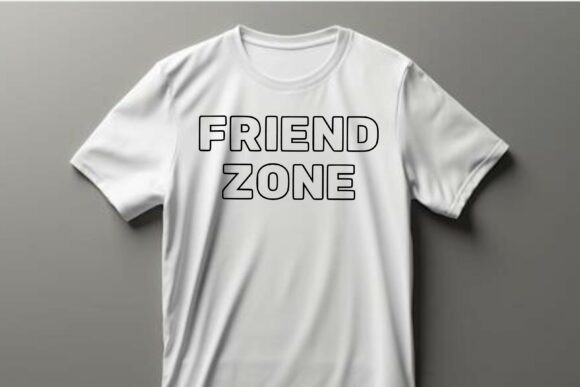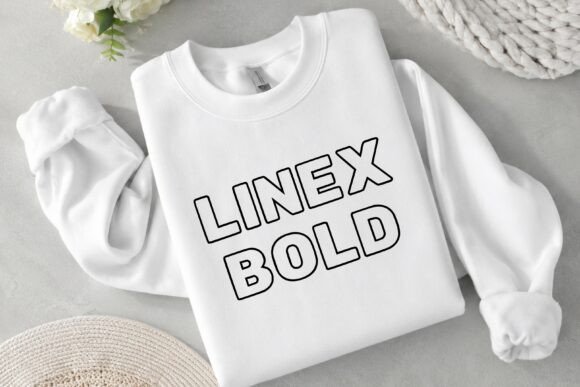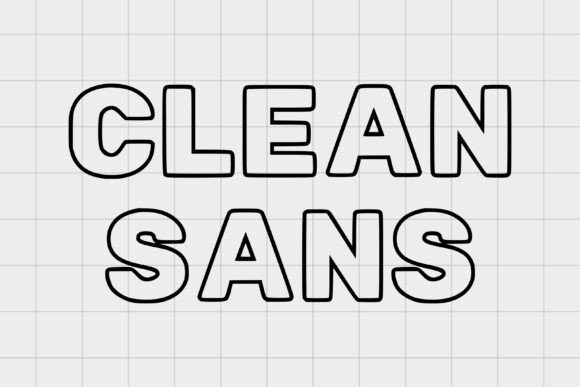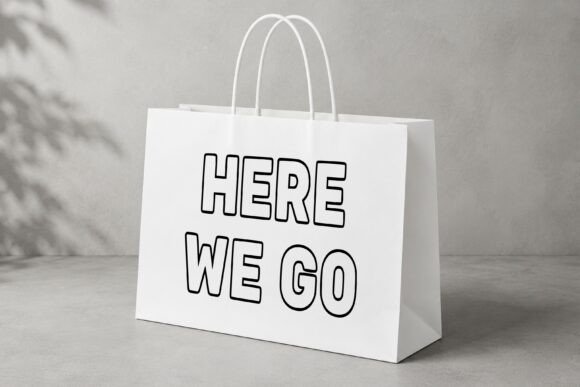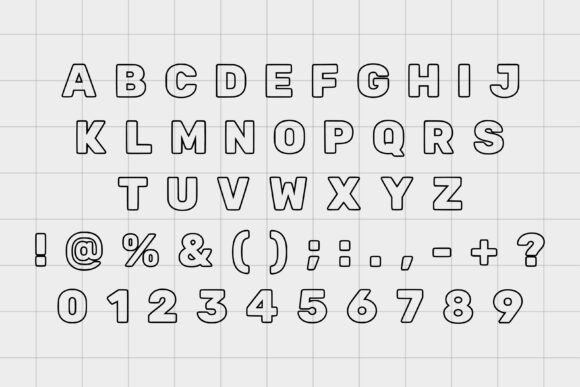
Unlocking Creativity with Outgrid Contour Font
Have you ever found yourself staring at a blank canvas, searching for the perfect font to bring your creative project to life? For designers, this moment can be both thrilling and intimidating. But what if you stumbled upon a font that not only elevates your design but also transports you to a world of futuristic possibilities? Welcome to the realm of Outgrid Contour Font, a striking display font that’s about to revolutionize your creative workflow.
This game-changing font combines clean curves with bold contour lines, creating a strong visual impact that’s sure to grab attention. Whether you’re working on a logo design, poster, or social media graphic, Outgrid Contour Font is the perfect design resource to take your project to the next level. With its modern geometric structure and transparent background, you can easily customize your design to fit any high-quality visual scheme.
Key Features of Outgrid Contour Font
- Unique Contour Design: The Outgrid Contour Font features a distinctive contour design that adds a creative touch to any project.
- High-Quality Graphics: This font is designed with high-quality graphics, making it a valuable resource for designers and artists.
- Transparent Background: The font comes with a transparent background, allowing for easy integration with other design elements and backgrounds.
- Perfect for Creative Projects: The Outgrid Contour Font is an excellent choice for designers and artists working on creative projects, from branding and advertising to digital art and graphics.
Honest Review: Outgrid Contour Font
I recently stumbled upon the Outgrid Contour Font, and I must say it’s been a game-changer for my creative projects. As a designer, I’m always on the lookout for high-quality design resources that can elevate my work.
However, I did encounter some limitations: ⚠️ The font is a bit limited in terms of character set, which can be a problem for projects that require a wide range of symbols and glyphs. ⚠️ Additionally, the font can be a bit glitchy when used with certain software, which can be frustrating.
Overall, I’m impressed with the Outgrid Contour Font. While it’s not perfect, its strengths far outweigh its weaknesses. If you’re a designer looking for a high-quality font to add to your design arsenal, I’d definitely recommend giving the Outgrid Contour Font a try.
- Customizable
For the best results, use the Outgrid Contour Font in combination with other design elements, such as shapes and images. Experiment with different font sizes and colors to create a unique and eye-catching design. You can also use the font in conjunction with other design resources to create a cohesive look.
The Outgrid Contour Font is ideal for use in a variety of creative projects, including graphic design, digital art, and marketing materials. It’s also a great resource for designers who need a high-quality, transparent background font for their designs.
Yes, the Outgrid Contour Font is designed to be used in combination with other design elements, such as graphics, illustrations, and textures. Its unique contour style makes it perfect for creating visually striking designs. You can use the font in conjunction with other design resources to create a cohesive and engaging visual identity for your project.